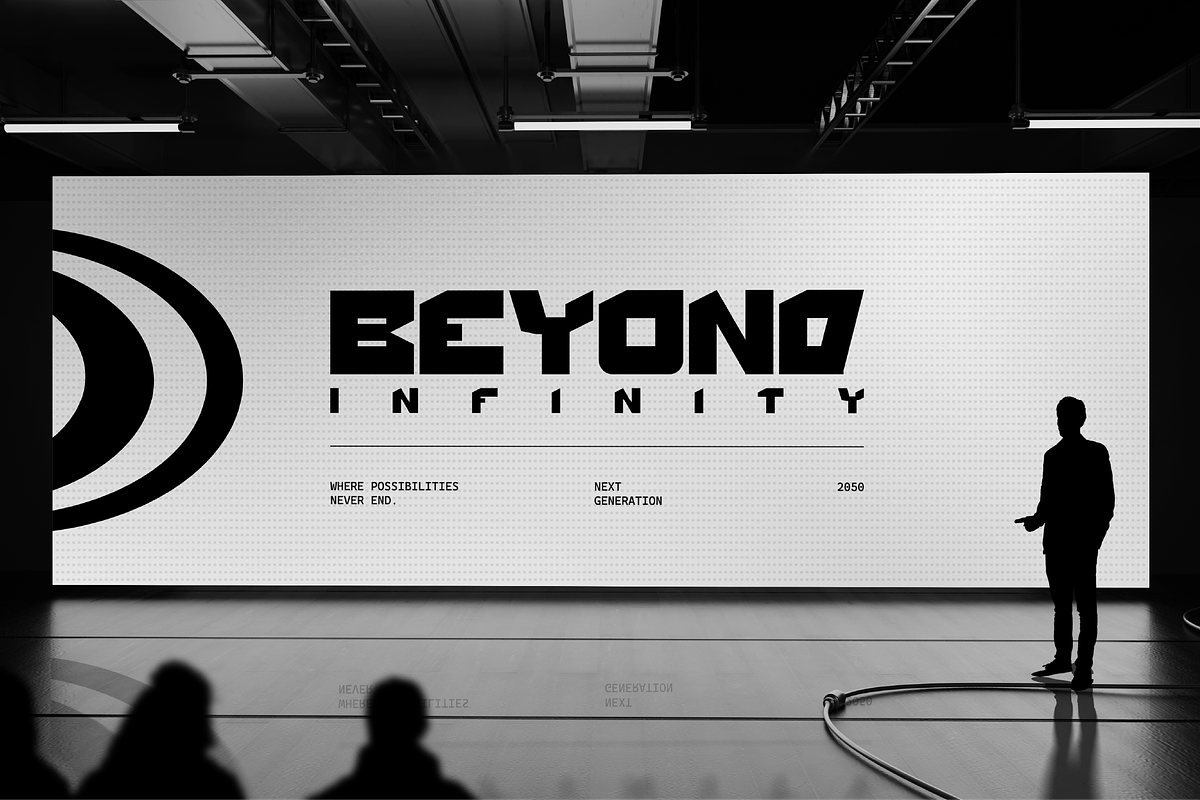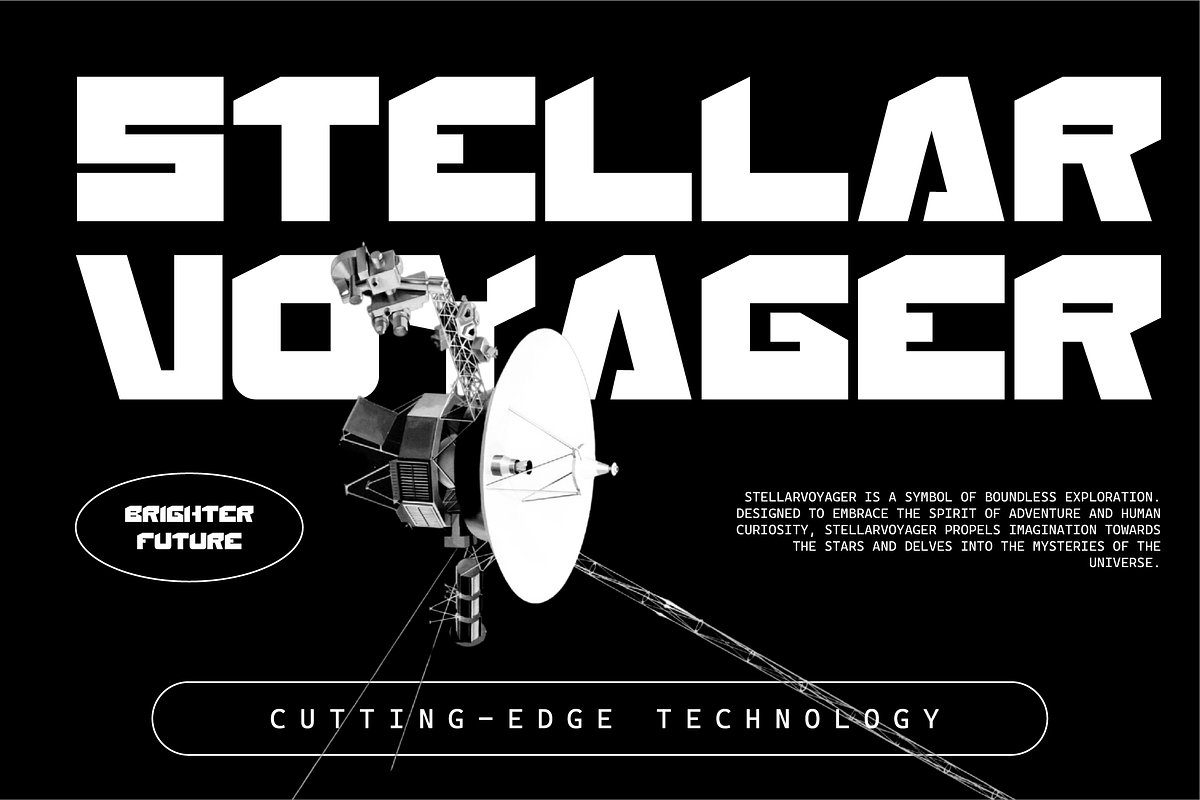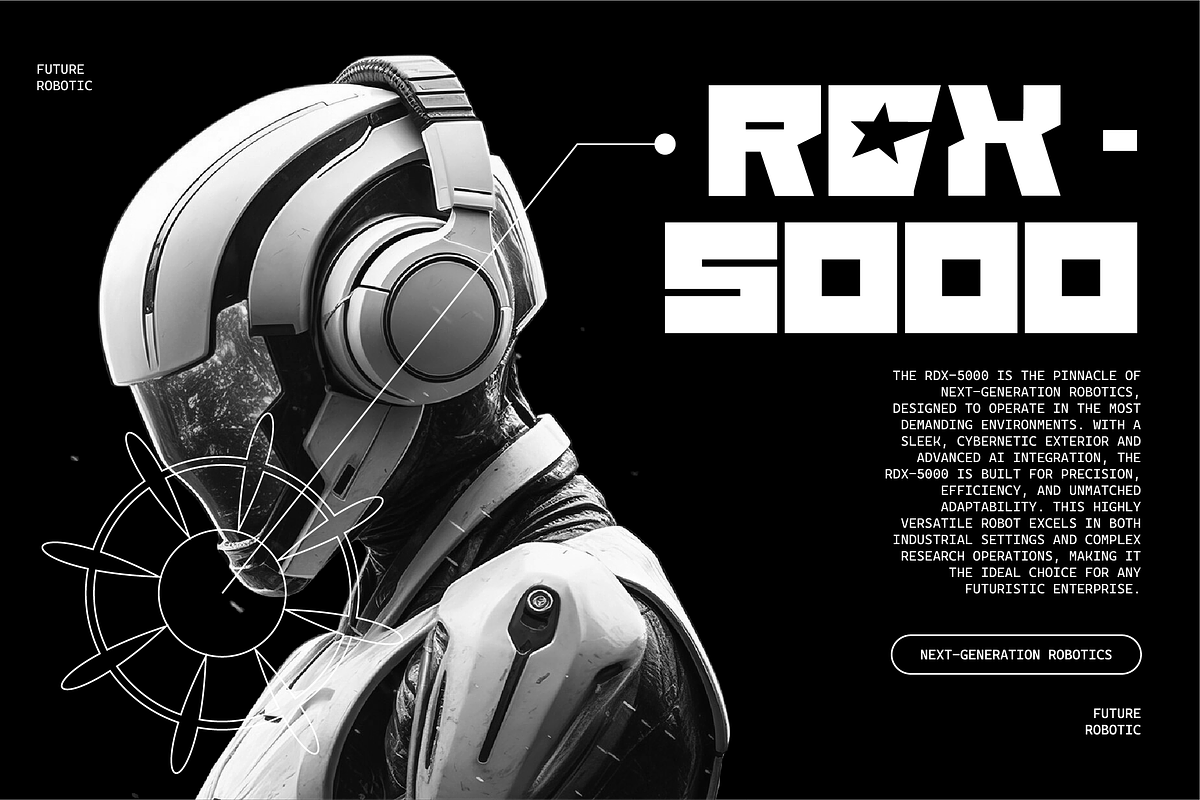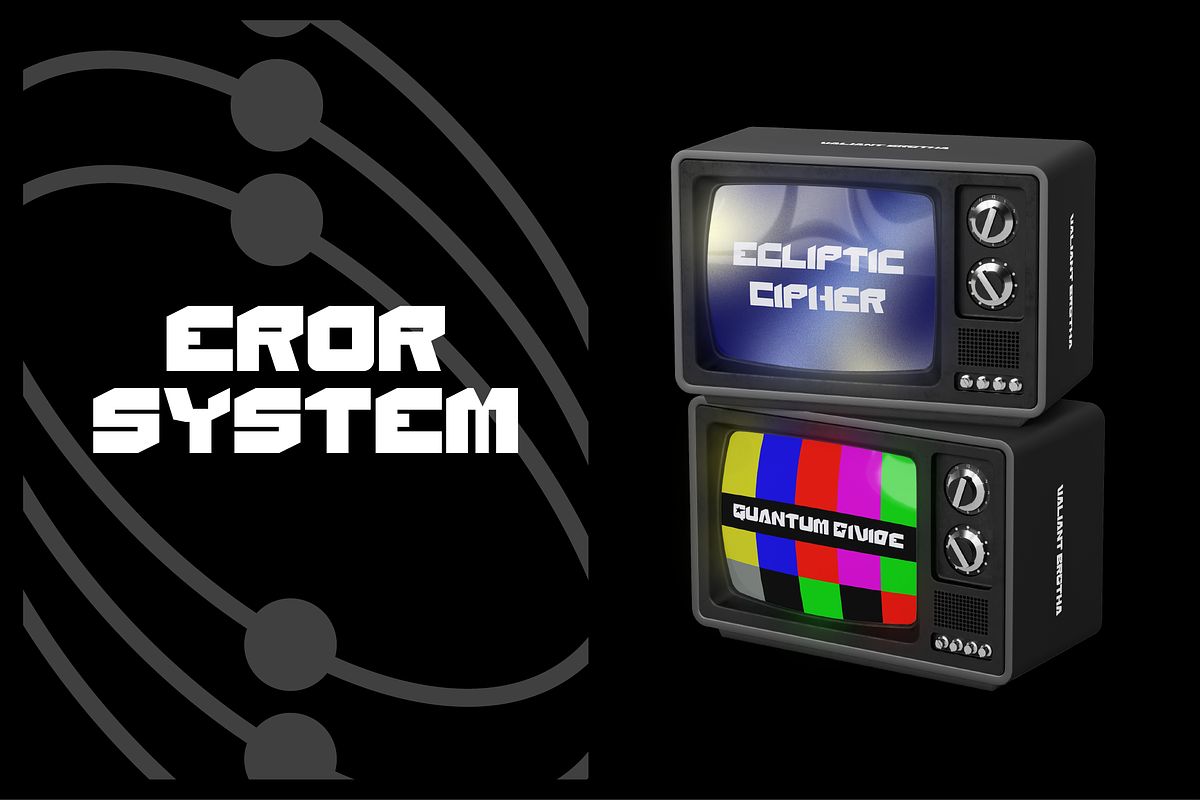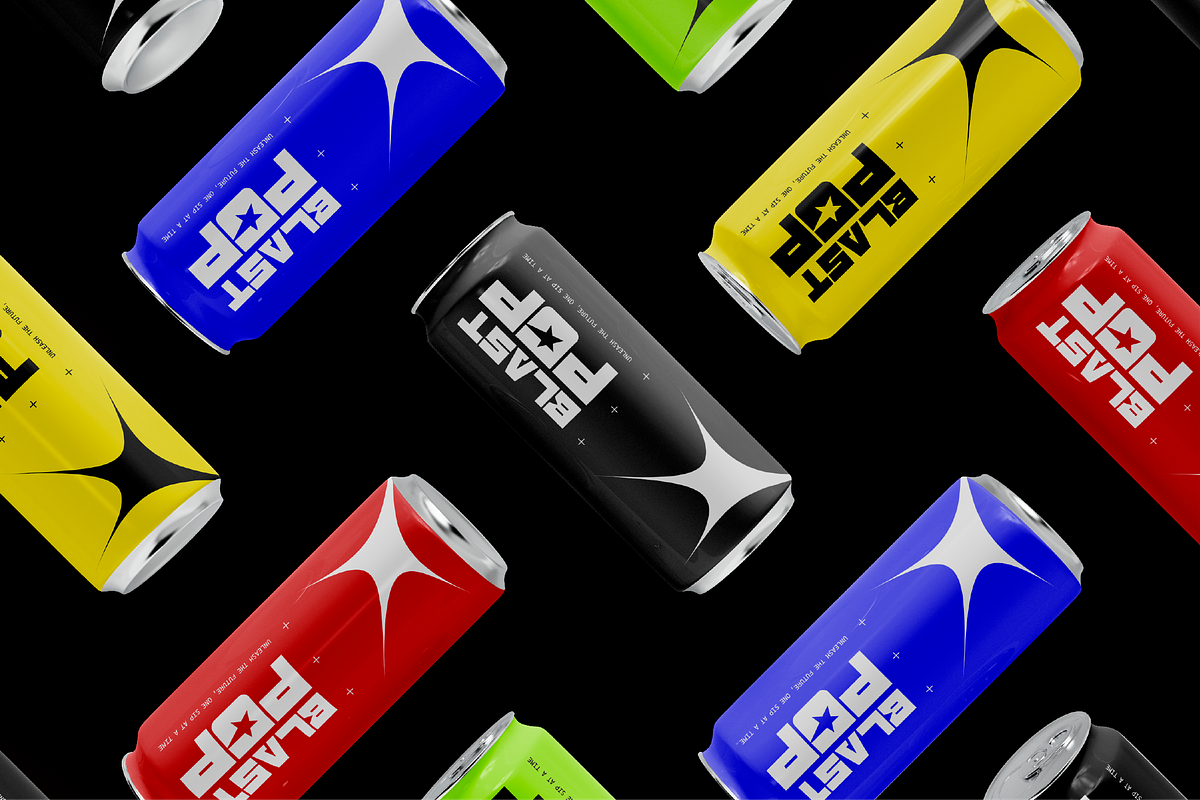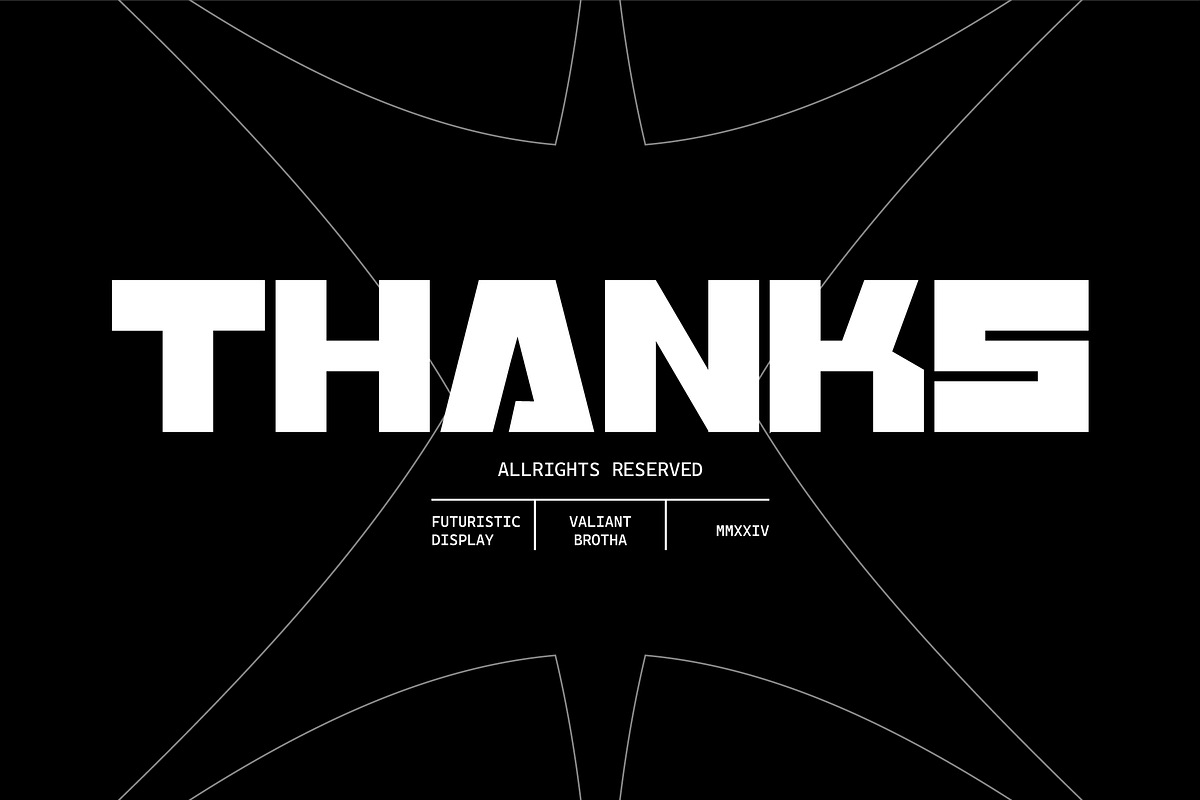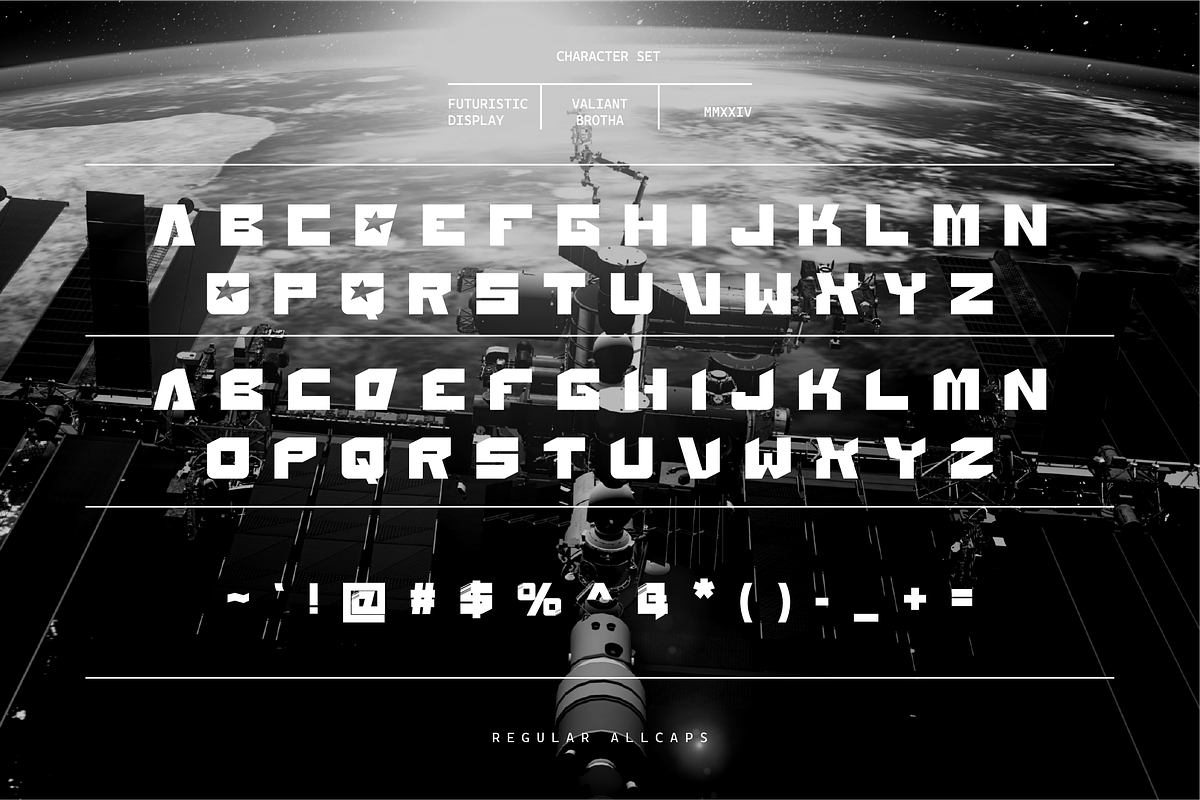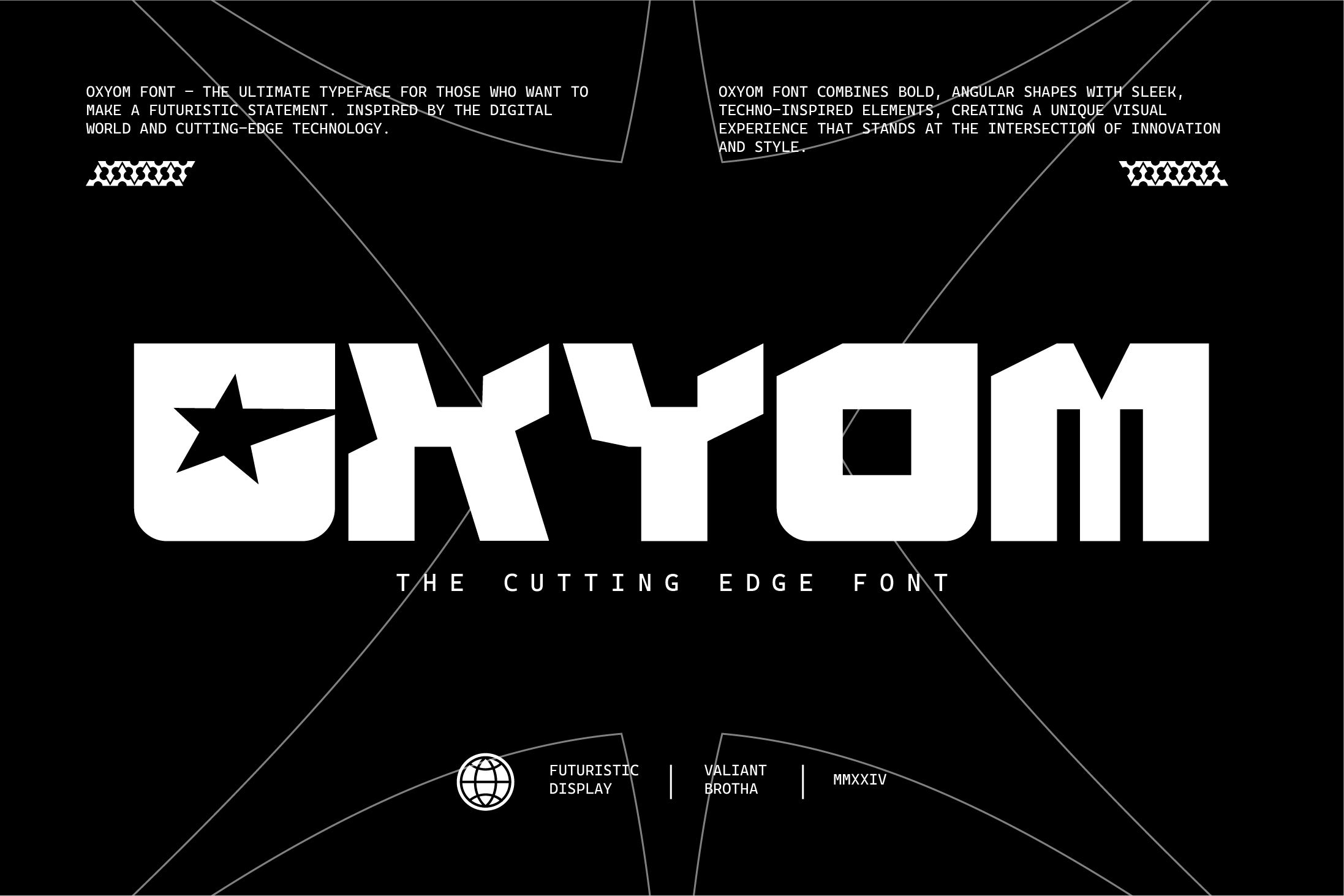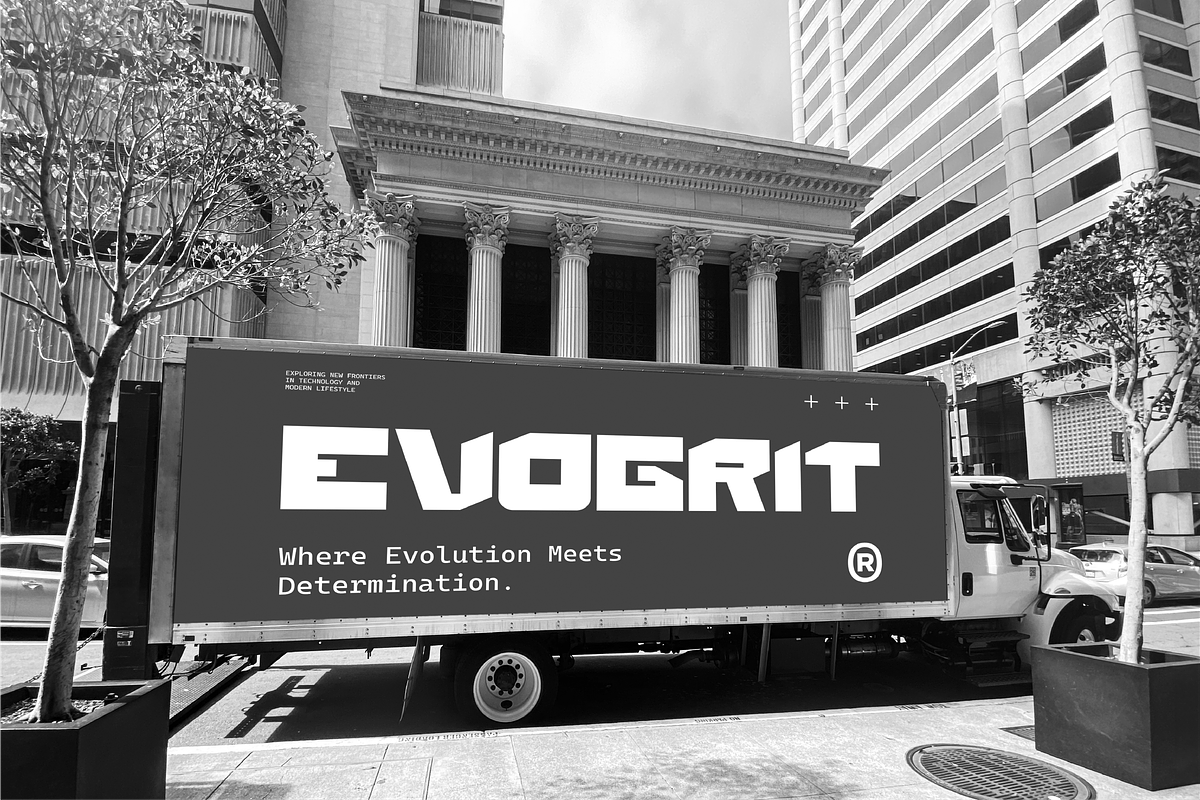
VB Oxyom - Futuristic Font
Oxyom Font – the ultimate typeface for those who want to make a futuristic statement. Inspired by the digital world and cutting-edge technology, Gamebot Font combines bold, angular shapes with sleek, techno-inspired elements.